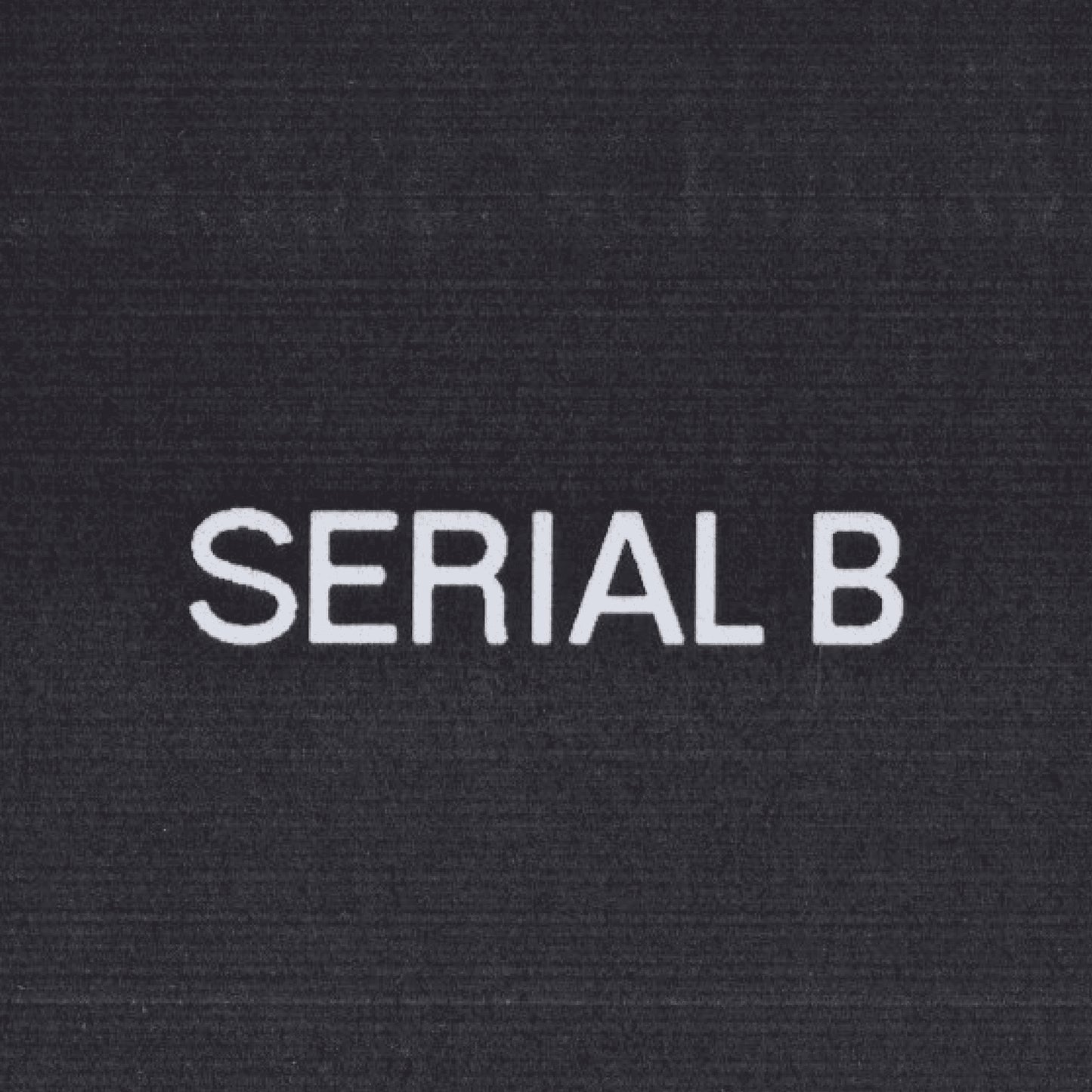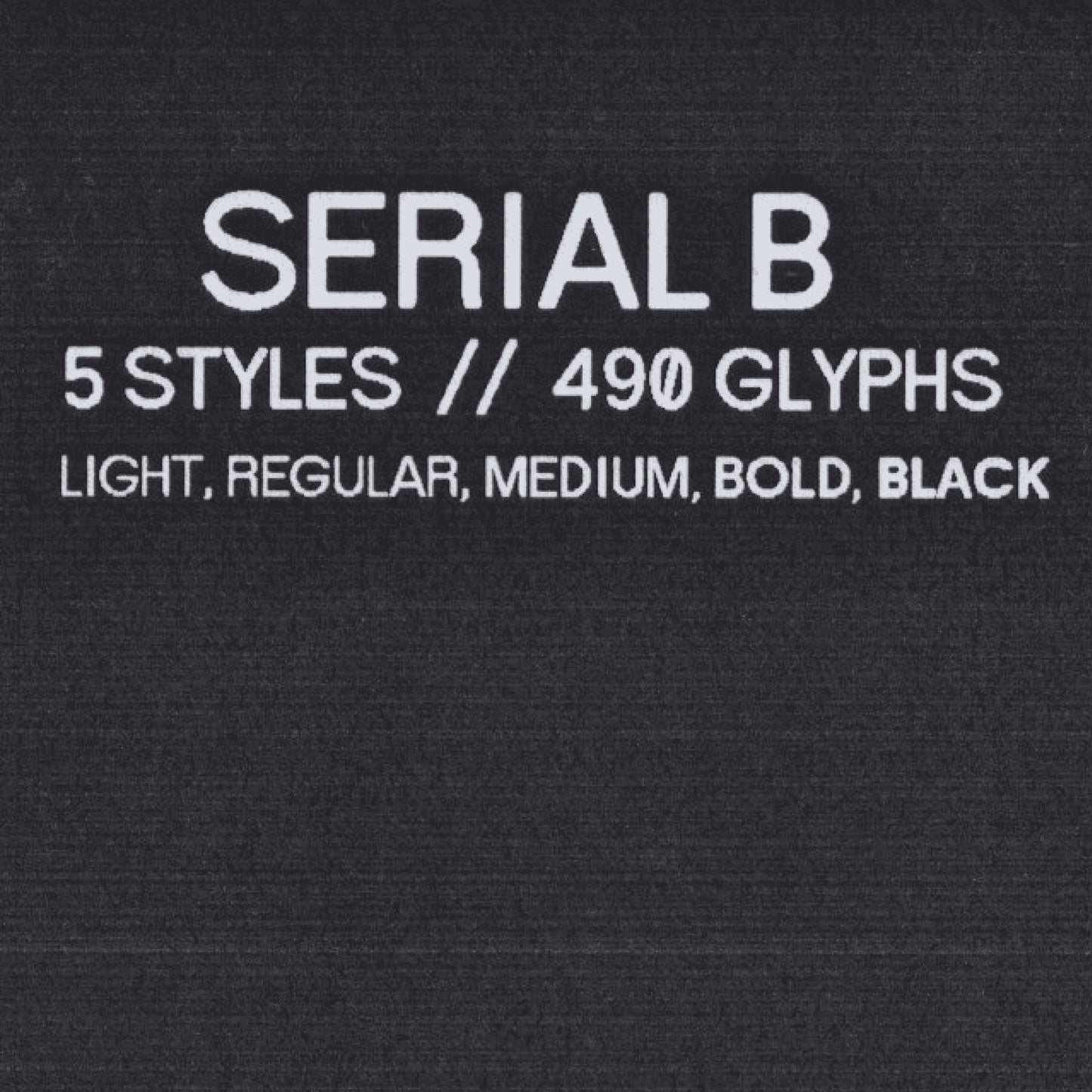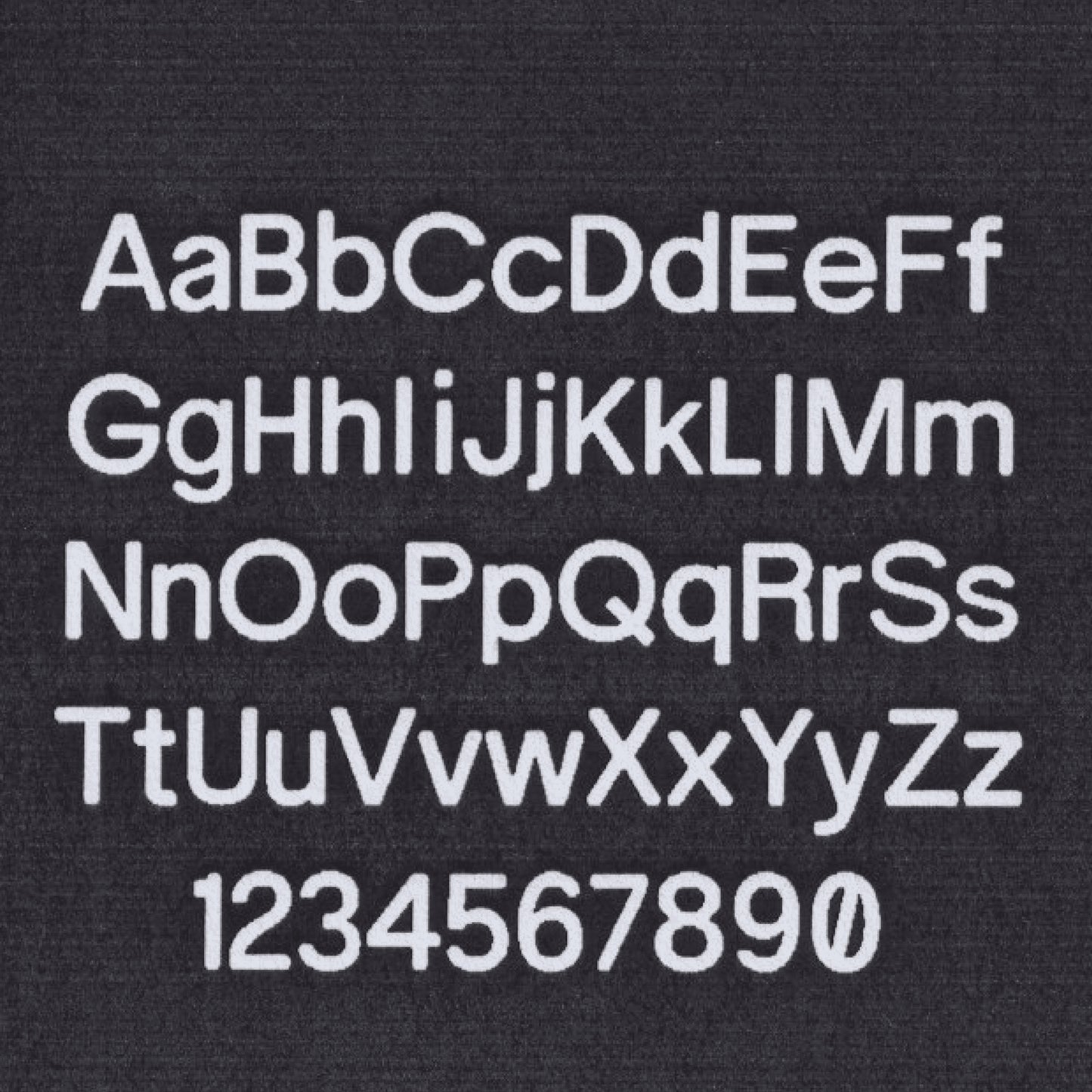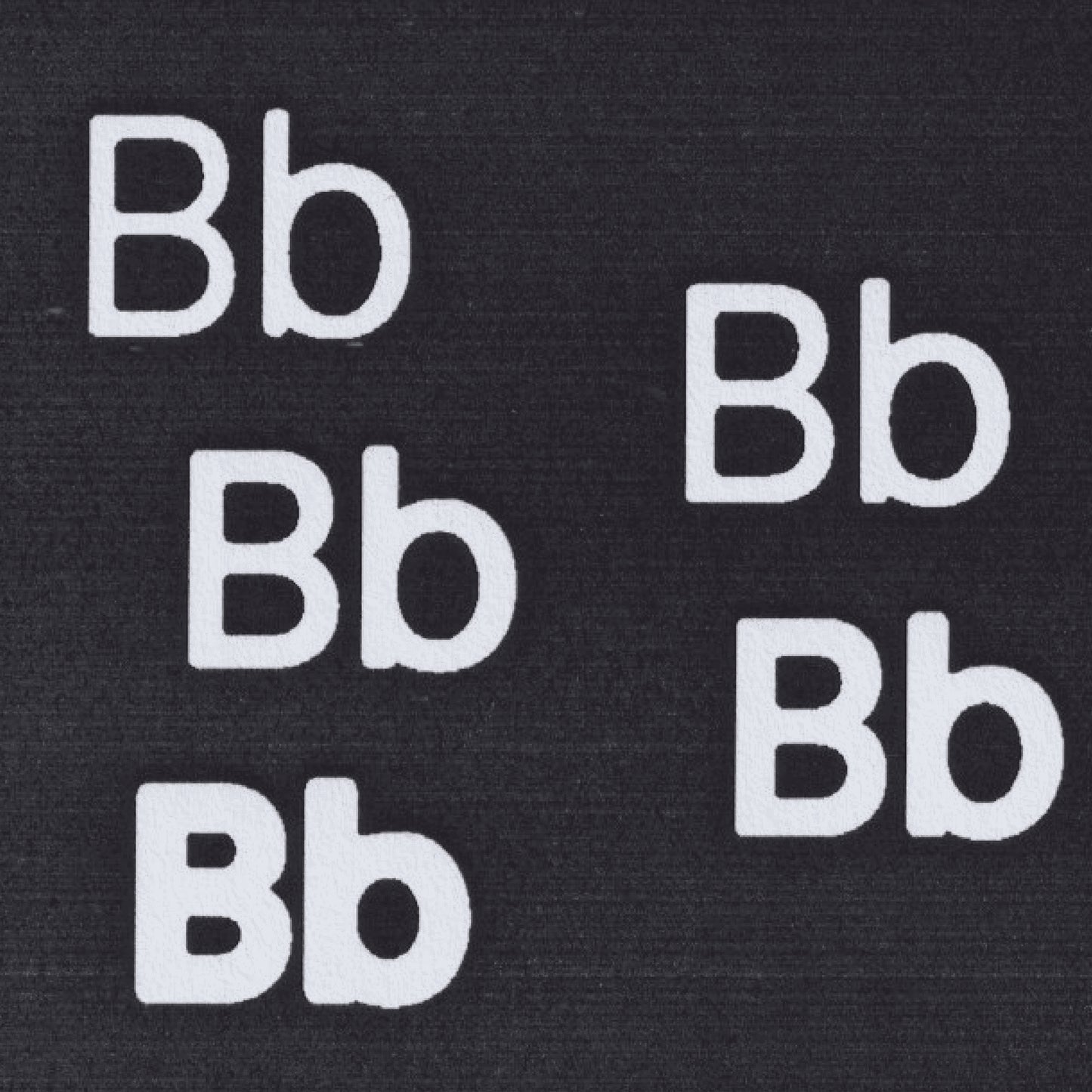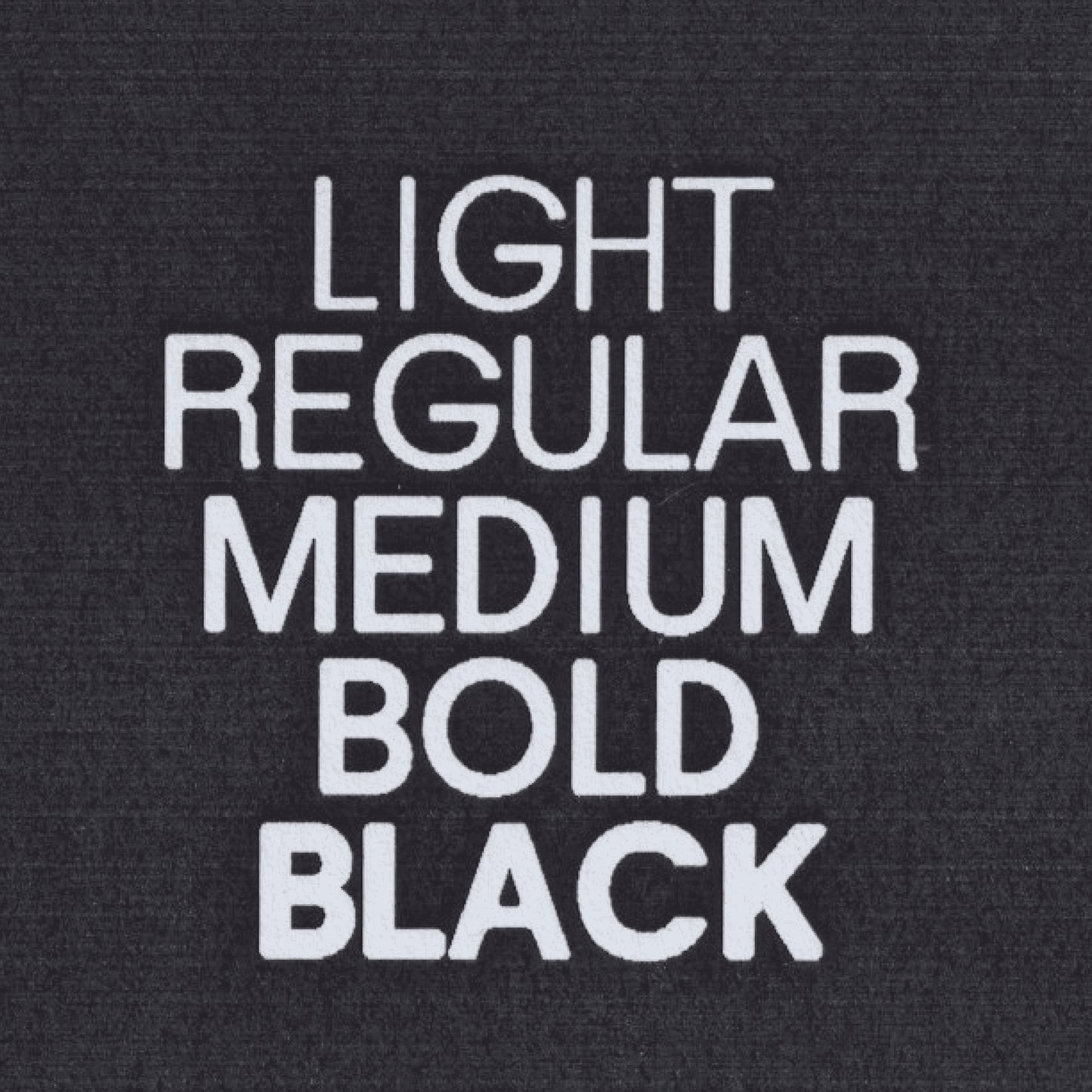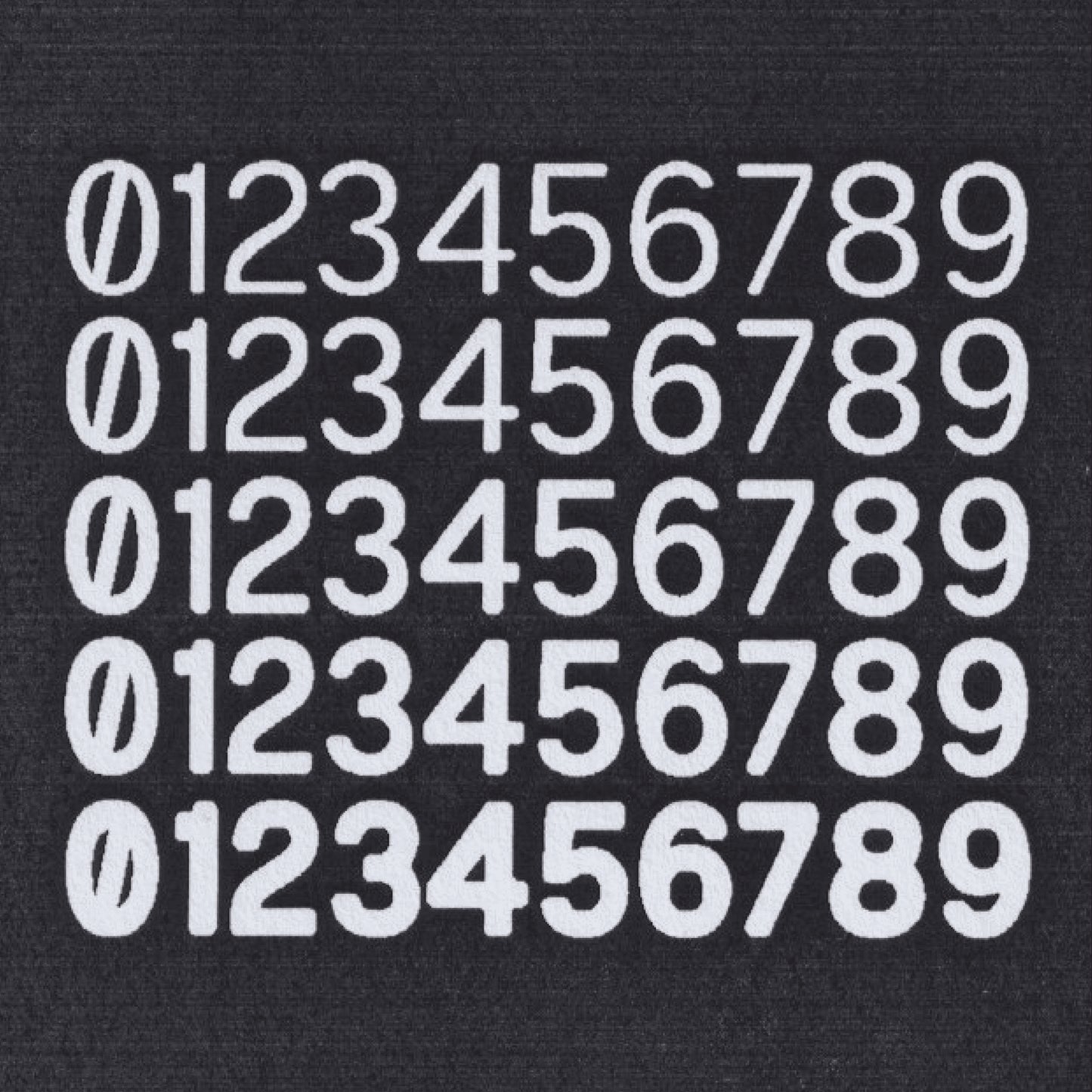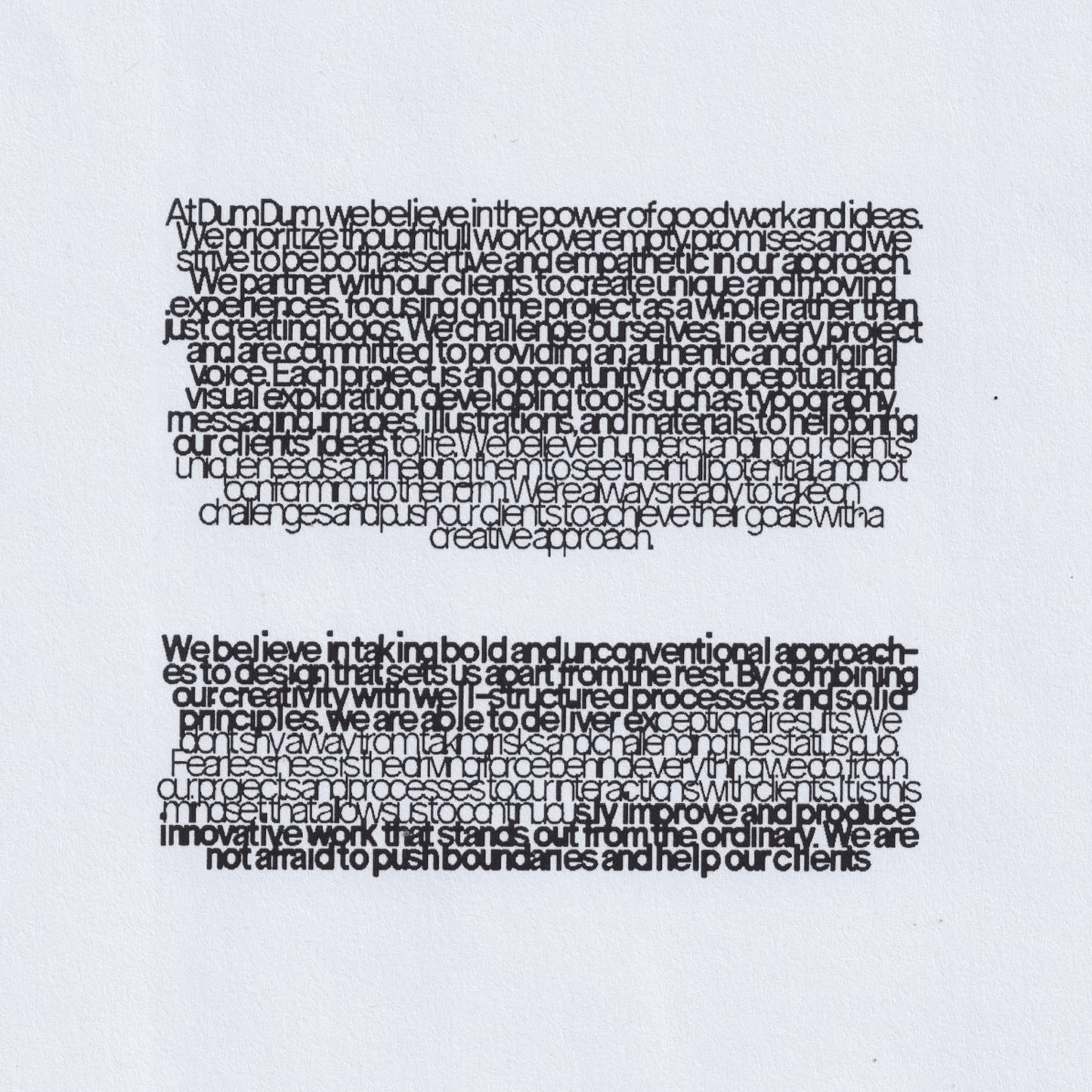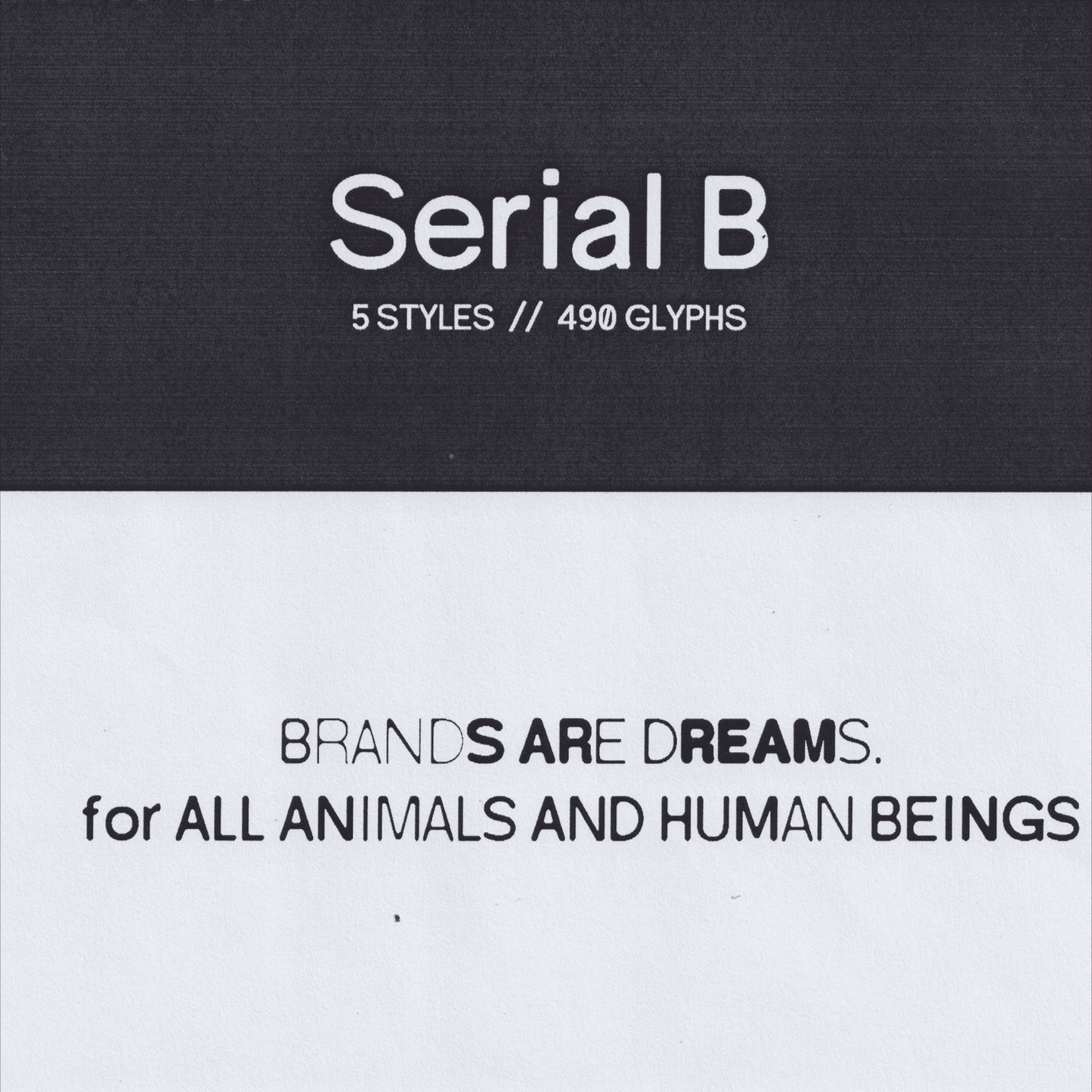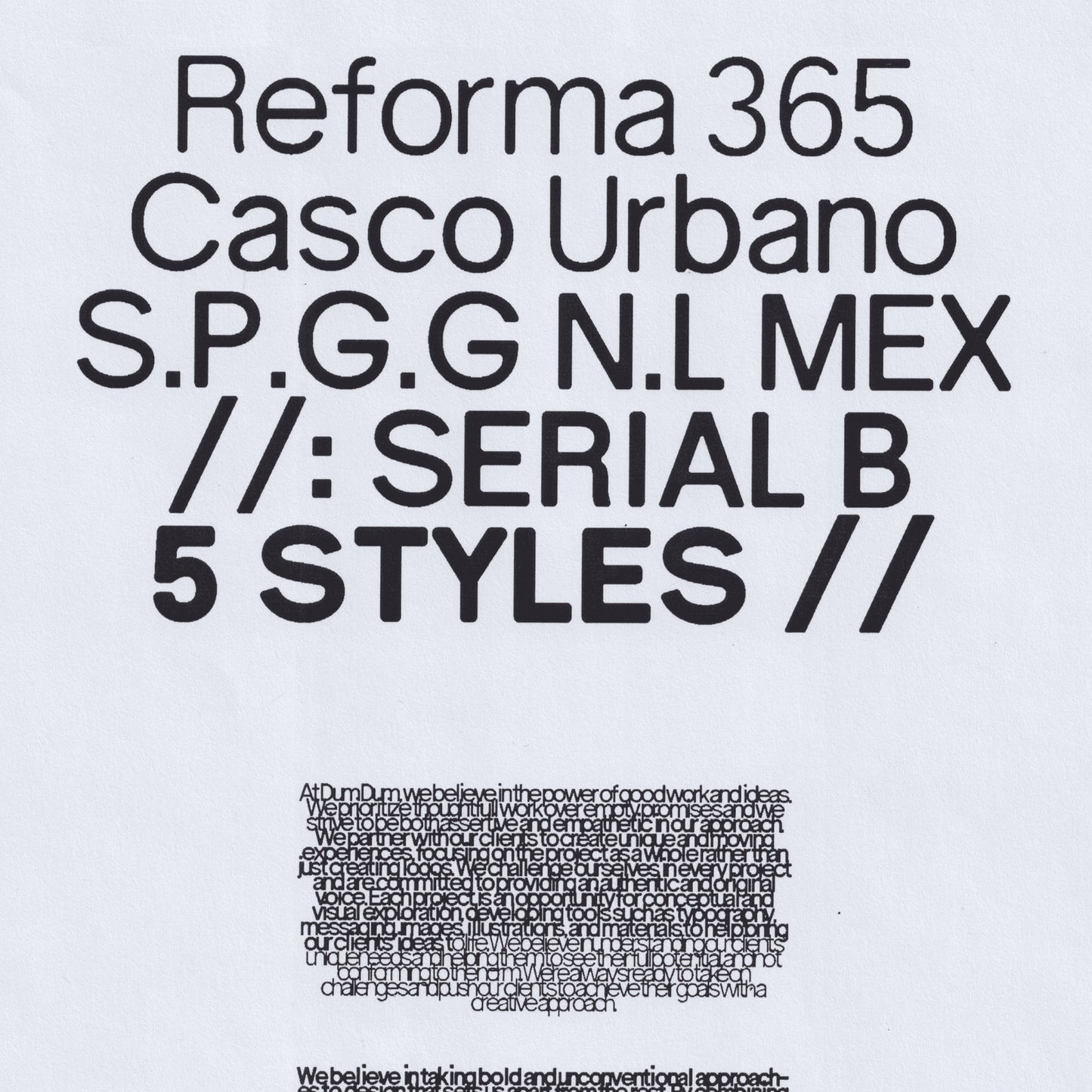
Serial B
Mario Julian Gutierrez
Serial B is a modern sans-serif typeface equipped with smooth, rounded curves. Each letter retains its own essence while following a system designed to make the reader pause at every word, making the reading experience more engaging and slightly easier for people with dyslexia.
The subtle imperfections in the typeface encourage a fresh perspective on each word, balancing individuality with structure.
— LIGATURES
— ALTERNATES AND SUBSTITUTES